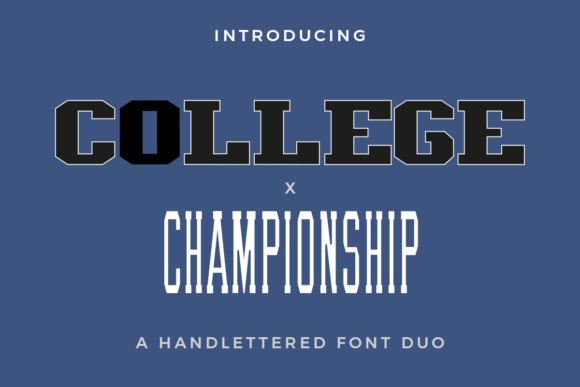
College X Championship Duo Font for Bold Brand Identity
Testing College X Championship Duo Fonts for Athletic Apparel Branding
When I first opened the file for College X Championship Duo, I was staring at a blank artboard for a new client project: a local athletic wear startup that wanted to bridge the gap between vintage collegiate aesthetics and modern performance gear. As a graphic designer, finding the right Slab Serif can be a challenge because many options feel either too dated or too generic, but this specific set of Fonts immediately stood out during my initial mockup phase. Introducing College and Championship as a dynamic duo of fonts that embody the spirit of athleticism and competition, I knew I had found a typeface that could carry the visual weight of the brand without feeling costume-like. With their bold, block serif style, they evoke the intensity of sports racing and team spirit, which was exactly the energy my client needed to differentiate themselves in a saturated market.
I started by testing the "College" variant on the primary logo lockup. The heavy, structured serifs provided a stable foundation that felt authoritative yet nostalgic. Unlike standard varsity fonts that often look like clip art, this typeface has refined proportions that work beautifully in a professional brand identity system. I paired it with a clean geometric sans serif for the tagline, allowing the slab serif to act as the hero element. This combination created an instant visual hierarchy that communicated strength and heritage before the viewer even read the copy. For designers working on sports-related branding, this font serves as an excellent anchor for logos that need to balance aggression with approachability.
Applying College X Championship Duo Slab Serif to Product Packaging Design
Moving from digital screens to physical goods, I applied College X Championship Duo to the packaging design for the apparel line’s hang tags and box labels. Using bold Slab Serif typography on packaging requires careful attention to legibility at smaller sizes, and these Fonts performed exceptionally well when scaled down for product stickers. The blocky nature of the letterforms maintained their integrity even when printed on textured cardstock, ensuring the brand name remained crisp and readable. Because the design evokes the intensity of sports racing and traditional athletics, using this typeface on packaging instantly signaled to customers that the product inside was built for performance, not just leisure.
I also utilized the "Championship" variant for secondary packaging elements, such as size indicators and collection names. While the primary font handled the heavy lifting for brand recognition, the secondary style offered a complementary texture that kept the unboxing experience visually engaging. It is crucial for designers to test how display fonts render in print before finalizing assets, and I found that increasing the tracking slightly improved readability on dark backgrounds. This practical adjustment ensured that the bold, block serif style didn't bleed into itself on matte paper. For any designer creating merchandise or retail packaging, this duo offers a versatile solution that feels premium and intentional rather than mass-produced.
College X Championship Duo Fonts for Social Media Graphics and Digital Ads
In today’s design landscape, a typeface must perform as well on Instagram as it does on a storefront sign, so I integrated College X Championship Duo into the social media template system. These Fonts are inherently loud, making them perfect for stopping the scroll in crowded feeds where subtle Slab Serif details might get lost. When designing promotional graphics for a seasonal sale, I used the font in all-caps for the headline, leveraging its athletic personality to create urgency and excitement. The bold, block serif style naturally draws the eye, serving as an effective hook for digital advertising campaigns that need to communicate value propositions quickly.
However, restraint is key when using such a distinctive display font in digital spaces. I avoided using it for body copy or long captions, reserving it strictly for headlines and key call-to-action buttons. Pairing it with a highly legible sans serif for the supporting text ensured that the overall composition remained accessible and user-friendly. This strategic use of typography helped maintain brand consistency across platforms while respecting web accessibility standards. For content creators and marketers, this font acts as a powerful tool for creating cohesive visual narratives that reinforce brand recall without sacrificing clarity. The intensity it brings to static posts translates equally well to motion graphics and video overlays, making it a comprehensive asset for multimedia branding.
Editorial Layouts Using College X Championship Duo Slab Serif Typography
Beyond marketing materials, I explored how College X Championship Duo could function within editorial design for the brand’s digital lookbook. While primarily a display typeface, these Fonts added significant character to pull quotes and section headers throughout the publication. A good Slab Serif should guide the reader through the content without causing fatigue, and the rhythmic structure of this font family achieved that balance effectively. The bold, block serif style created distinct visual breaks between articles, mimicking the pacing of a sports magazine while maintaining a contemporary fashion editorial aesthetic.
I paid close attention to line height and spacing when setting these headers, as the inherent weight of the glyphs can make text blocks feel dense if not given enough breathing room. By increasing the leading and utilizing negative space strategically, the typography felt open and inviting rather than oppressive. This experience reinforced that successful font implementation is as much about layout mechanics as it is about type selection. For designers working on magazines, zines, or blog layouts, this duo provides a stylistic shorthand for themes involving teamwork, endurance, and classic Americana. It transforms standard editorial grids into immersive brand experiences that resonate emotionally with the target audience.
Evaluating Commercial Licensing and Font Pairing for Client Projects
Before delivering the final brand guidelines, I verified the technical specifications and licensing terms associated with College X Championship Duo to ensure full commercial compliance for my client. When investing in premium Fonts, understanding the scope of usage is critical, especially for a Slab Serif intended for widespread application across merchandise, web, and print. The robust character set included necessary alternates and ligatures that allowed me to customize specific logo treatments without breaking the typographic voice. This level of detail is what separates professional-grade typefaces from free alternatives, providing the flexibility needed for complex branding systems.
Regarding font pairing, I found that this typeface works best when contrasted against minimalist counterparts. Because the bold, block serif style carries so much visual information, pairing it with another decorative font often leads to clutter. Instead, I recommend combining it with neutral grotesques or modern humanist sans serifs to let the athletic personality shine. This approach ensures that the brand identity remains versatile enough to evolve over time without needing a complete rebrand. For fellow designers considering this purchase, I advise testing the font in your specific medium early in the process. Whether you are designing a gym signage system or a craft beer label, the key is to let the font’s inherent intensity drive the design while using layout and supporting type to provide balance and usability.